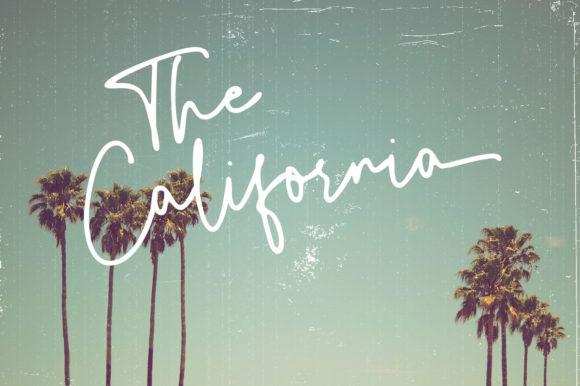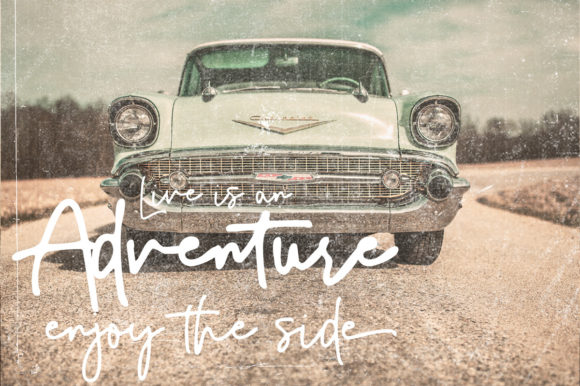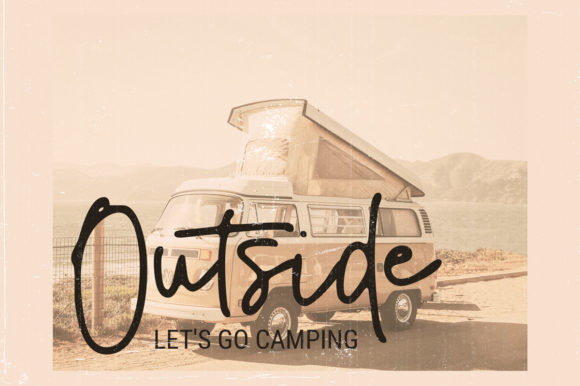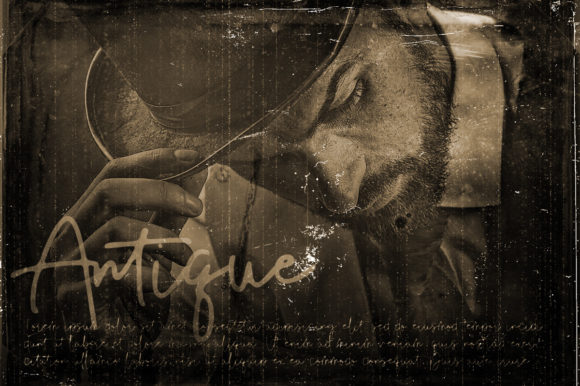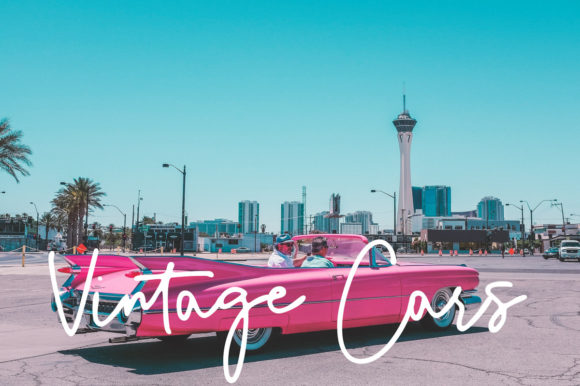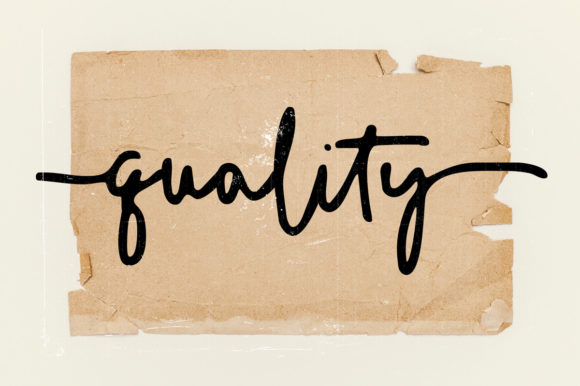
Introduction to Sintage Font
Sintage is a beautiful script font that was created following the hand lettering method.
Among its many features, you can find amazing ligatures and stylistic alternates that give it a vintage and classy look You can use it with confidence on logotypes, badges, emblems, that need a strong and bold handwritten touch.